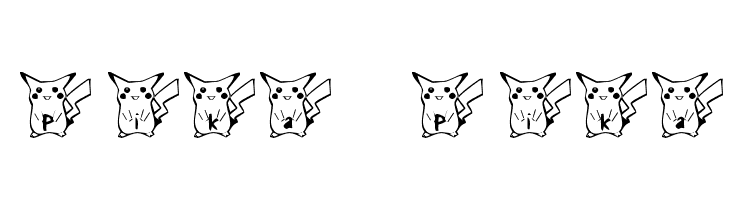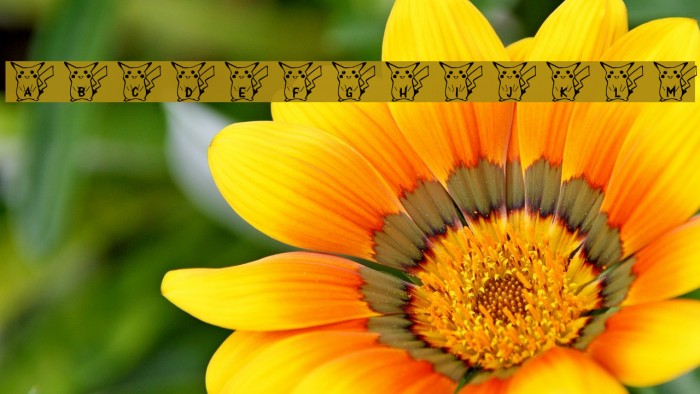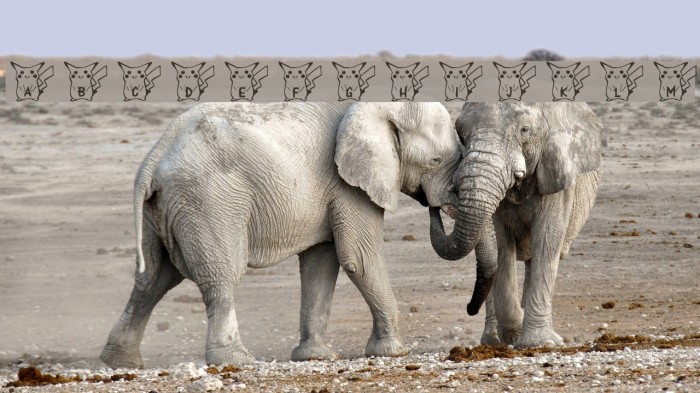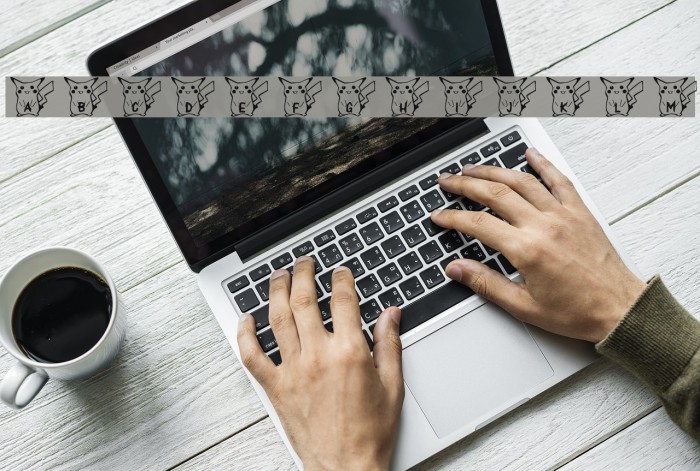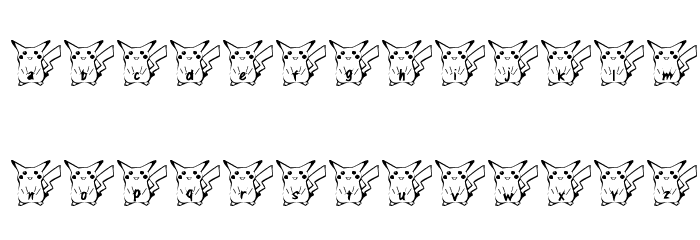
Pika Pika Font
Pika Pika Description
This playful and whimsical font features characters styled as a popular electric mouse character, adding a unique and fun twist to each letter and number. The design incorporates the character's iconic features, such as its ears and tail, into the structure of each glyph, creating a cohesive and entertaining visual theme. The font includes both uppercase and lowercase letters, as well as numbers and a selection of special characters. Its distinctive style makes it ideal for projects that aim to capture a sense of nostalgia or appeal to fans of the character. The font's design is highly decorative, making it more suitable for headlines or display purposes rather than body text.
A playful font featuring characters styled as a popular electric mouse character from Uncategorized fonts.
- Proposed Projects: Ideal for themed party invitations, children's book covers, fan merchandise, and playful branding.
- Overall Style: Playful, Whimsical
- Use Case: Headlines, Logos, Themed Events